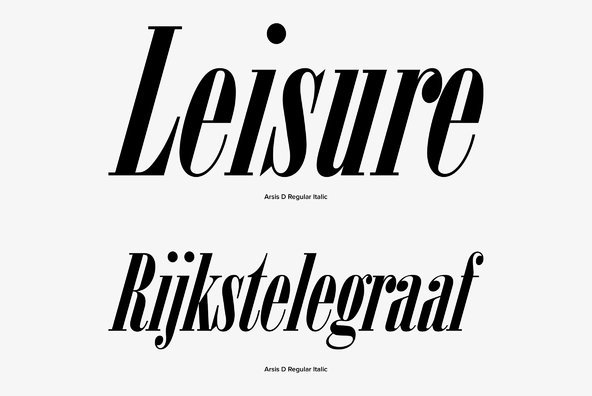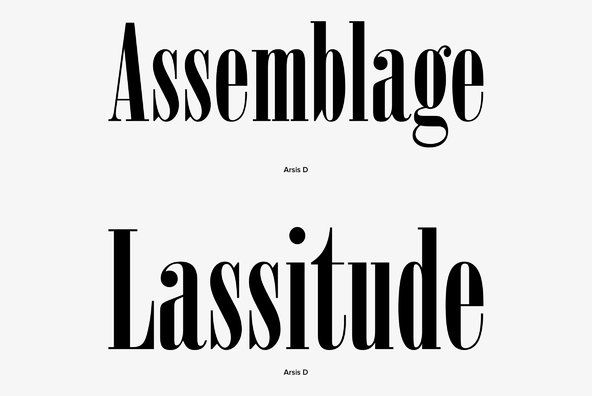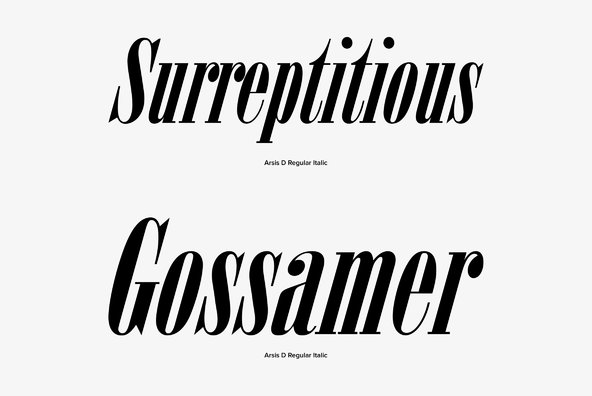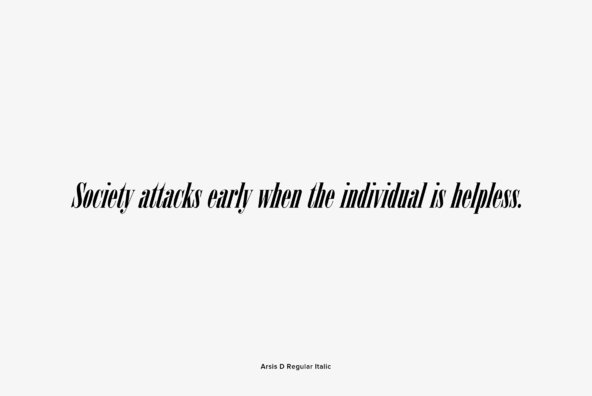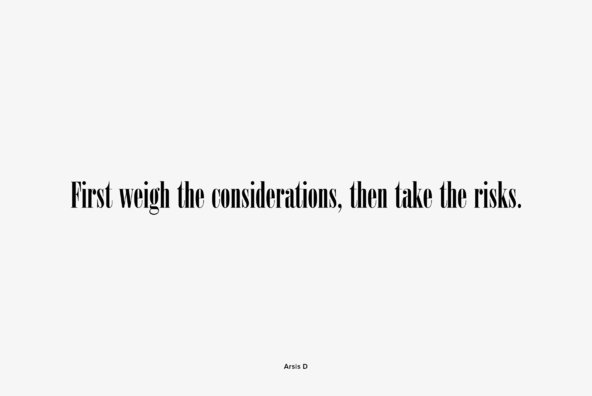
Arsis is a condensed modern headline face, very elegant, very feminine, that was originally produced and cast in hot metal by the Dutch type foundry Lettergieterei Amsterdam. It was designed by Gerry Powell in 1937.